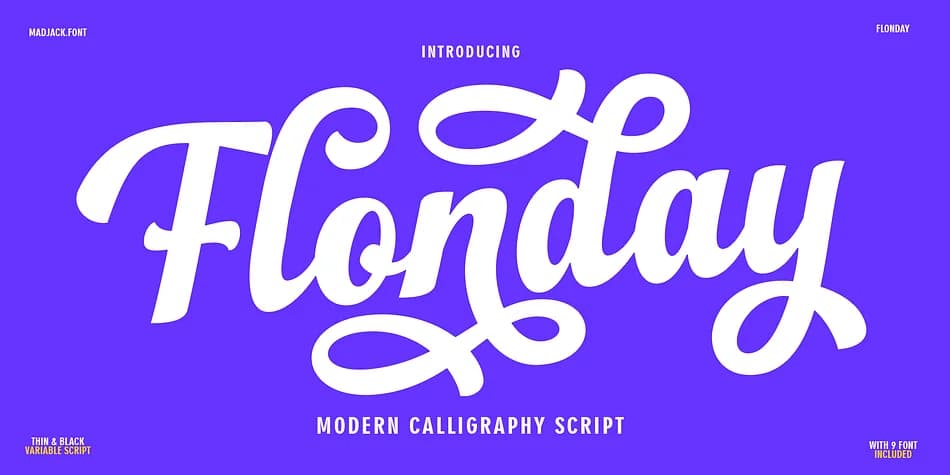
Flonday feels refined and deliberate, the kind of script that works when handwriting needs to feel both personal and polished. Created by madjack.font, this modern calligraphy typeface marries flowing letterforms with strong decorative ligatures and ornamental touches that command attention without veering into excess. The letters carry confident weight, making them work for both display and branding applications without ever feeling fragile.
You'll find this typeface at home designing wedding invitation suites, creating packaging for boutique skincare brands, or hand-lettering custom event signage. It handles luxury product labels and high-end greeting card designs with real grace. The typeface brings that handmade sensibility to professional work, adding personality and warmth without sacrificing clarity or legibility.
What makes it genuinely flexible is the nine included weights that span from thin to black, allowing you to adjust the visual impact depending on how bold you want the personality to read. The script also includes thoughtful ornamental details, curved letter tails, and distinctive ligatures built in, giving you room for embellishment without needing to hunt for additional ornament fonts. Pair it with a clean, minimal sans-serif to keep body copy grounded and preserve clear visual hierarchy. The full family is available on Creative Fabrica.
Flonday Font is a script font that shines as a display or heading face. Pair it with a clean sans-serif or serif font for body text β the contrast creates a clear hierarchy while the two styles stay balanced and easy to read.